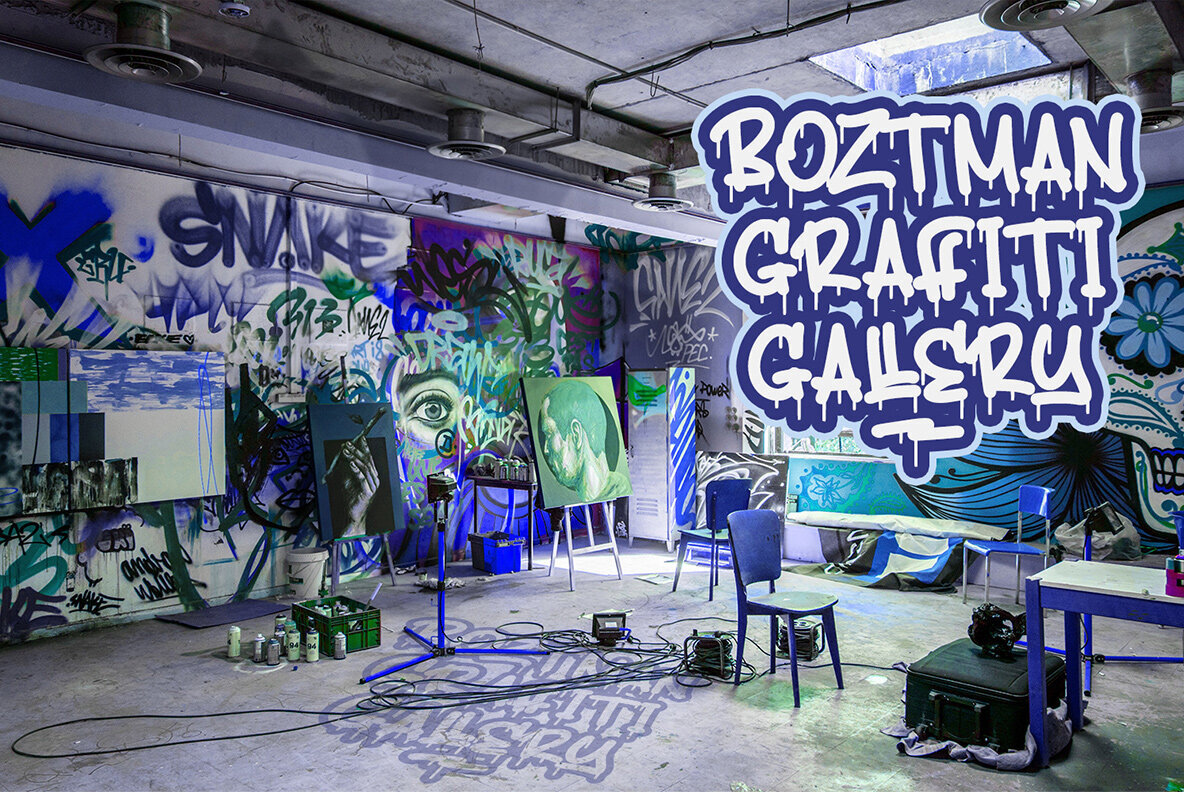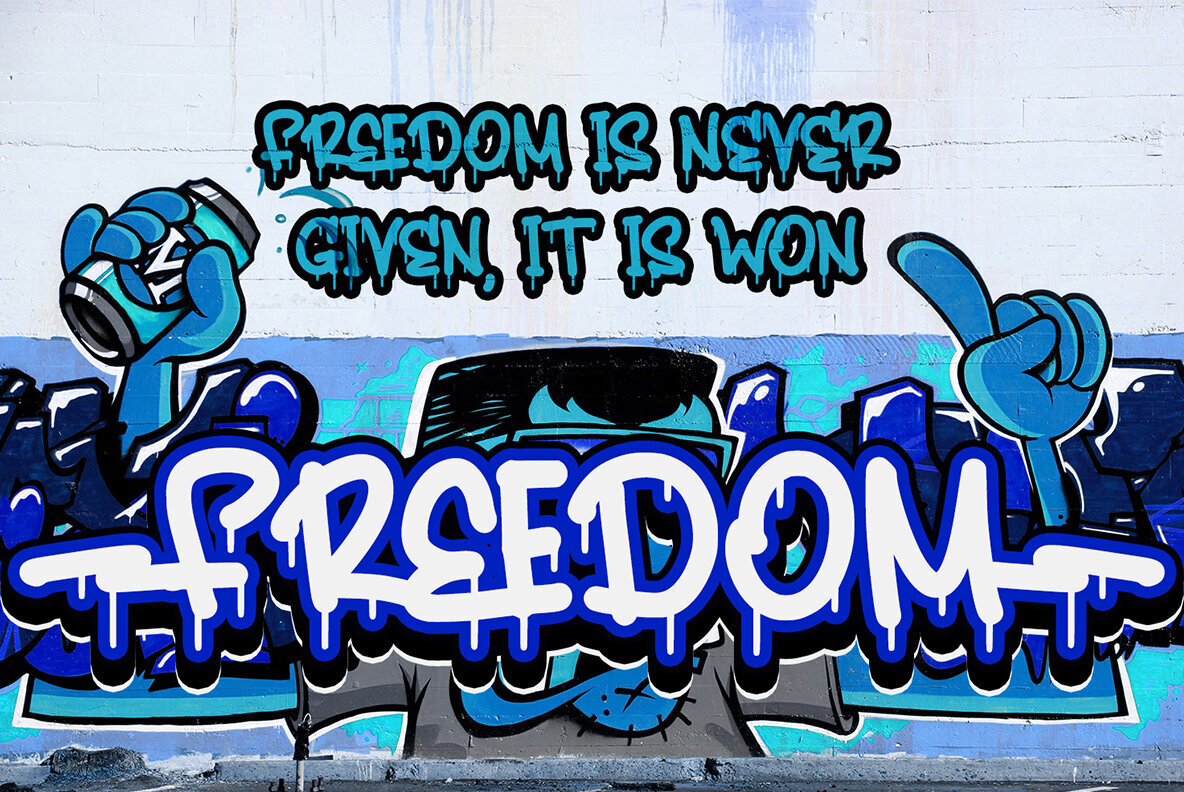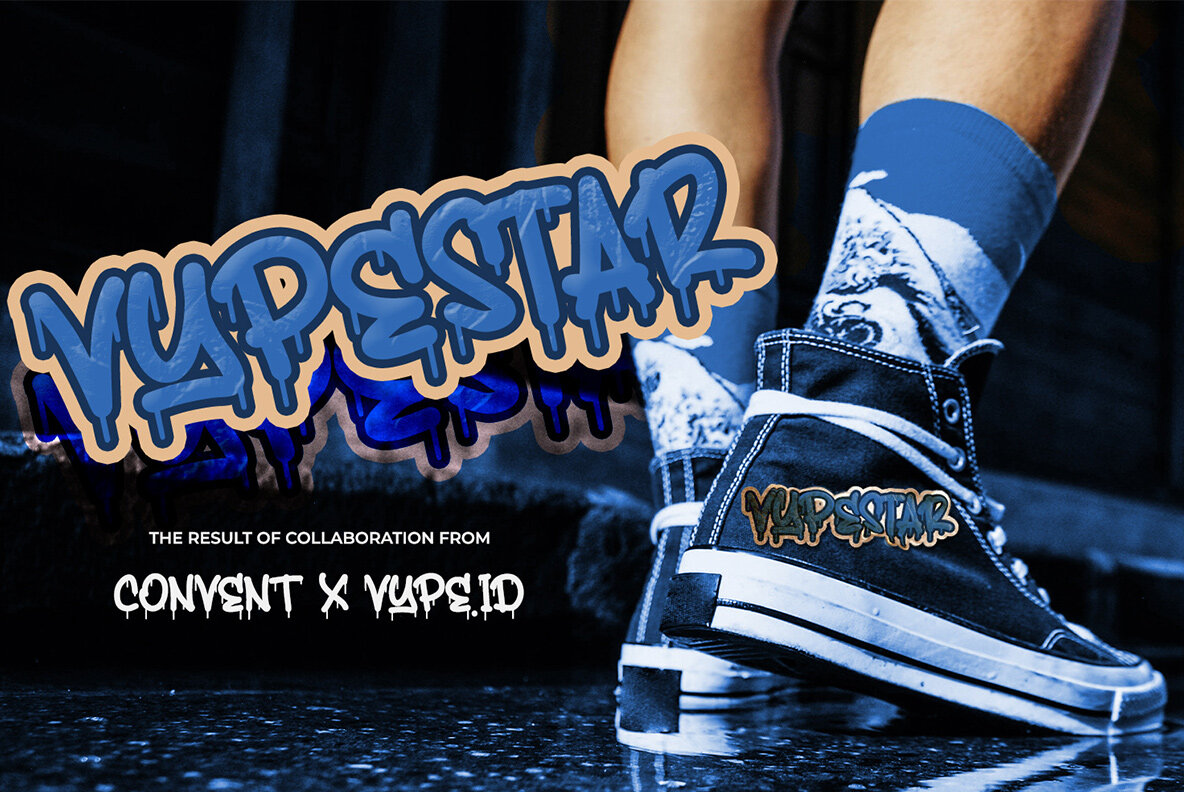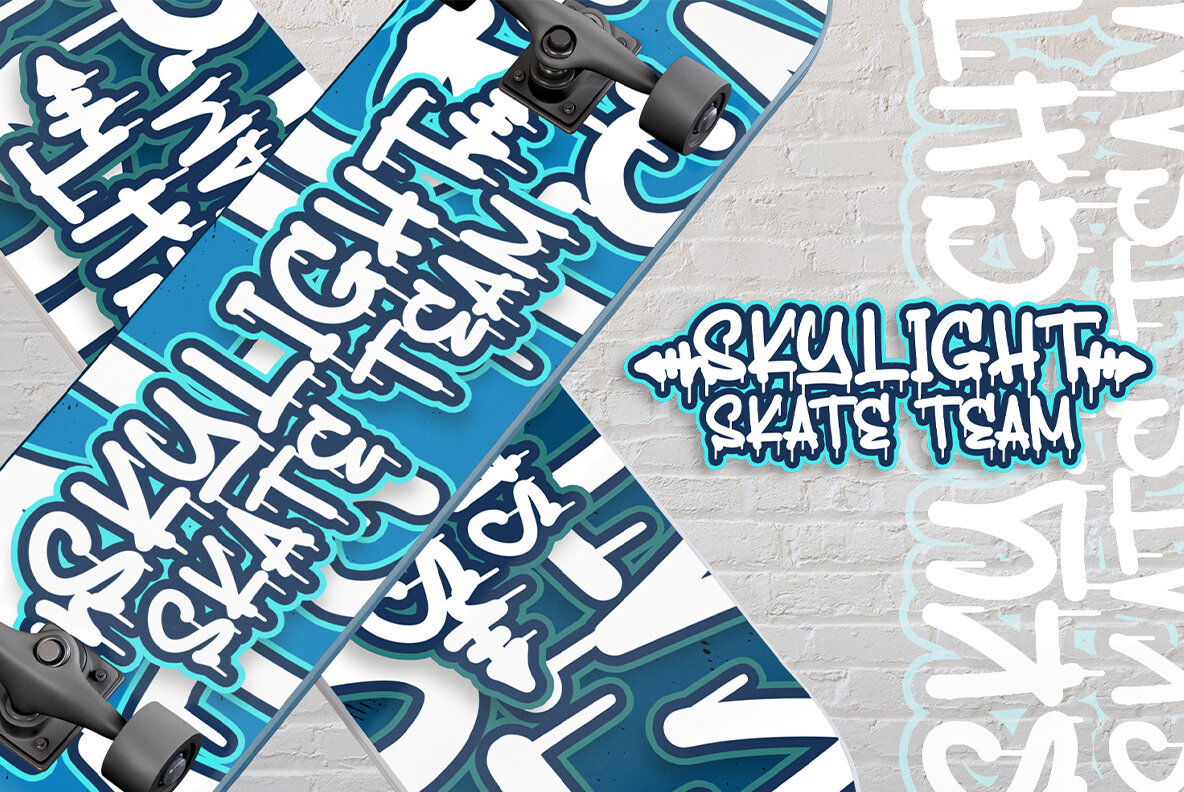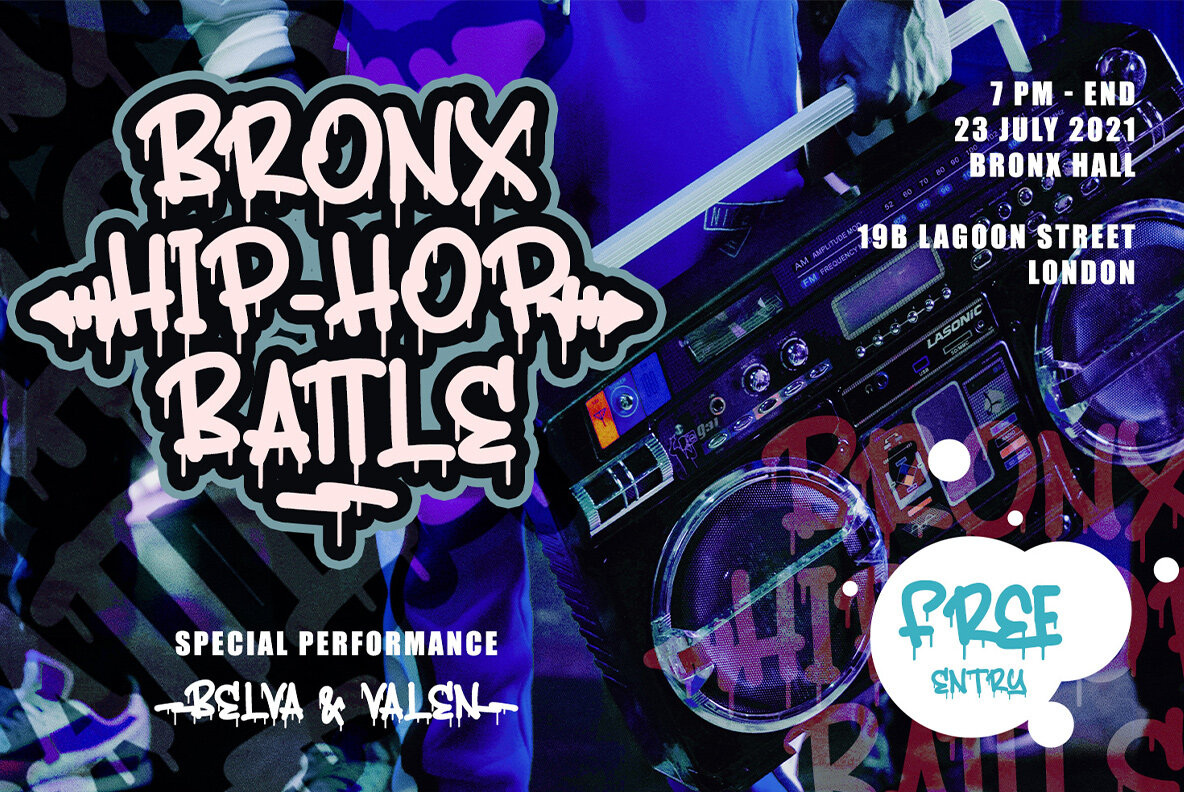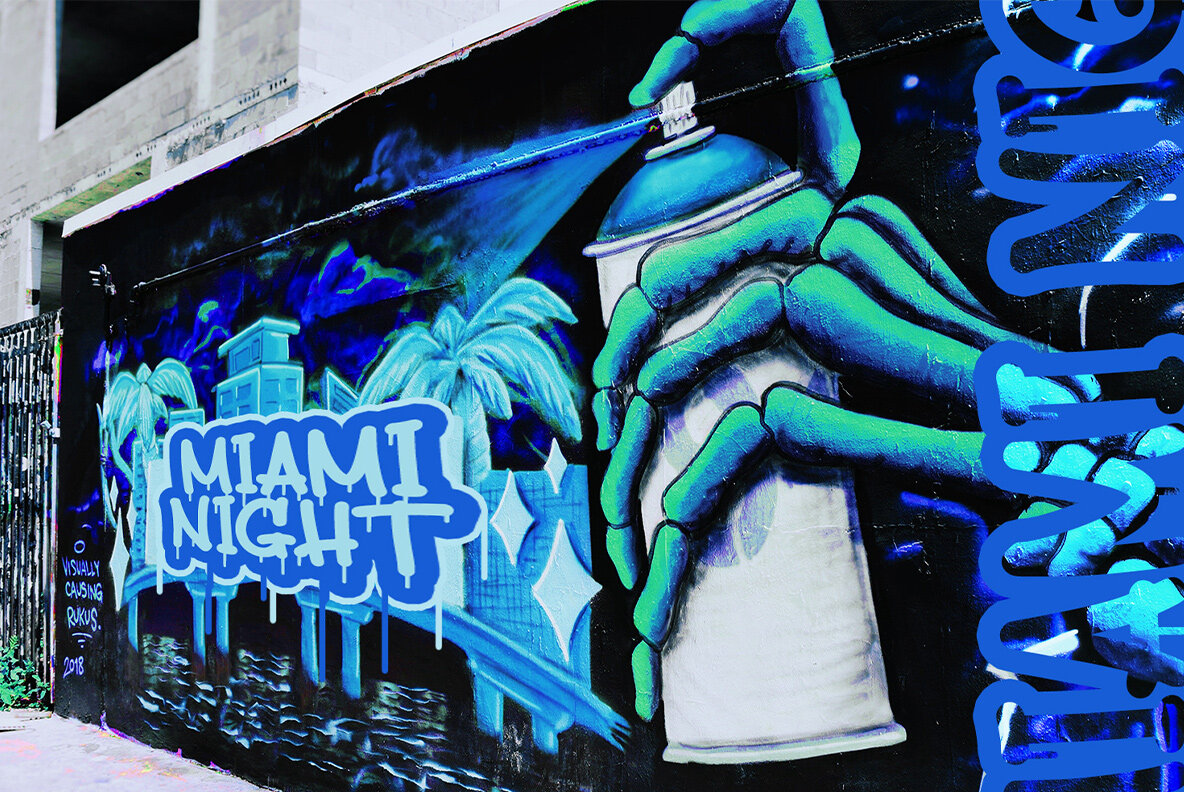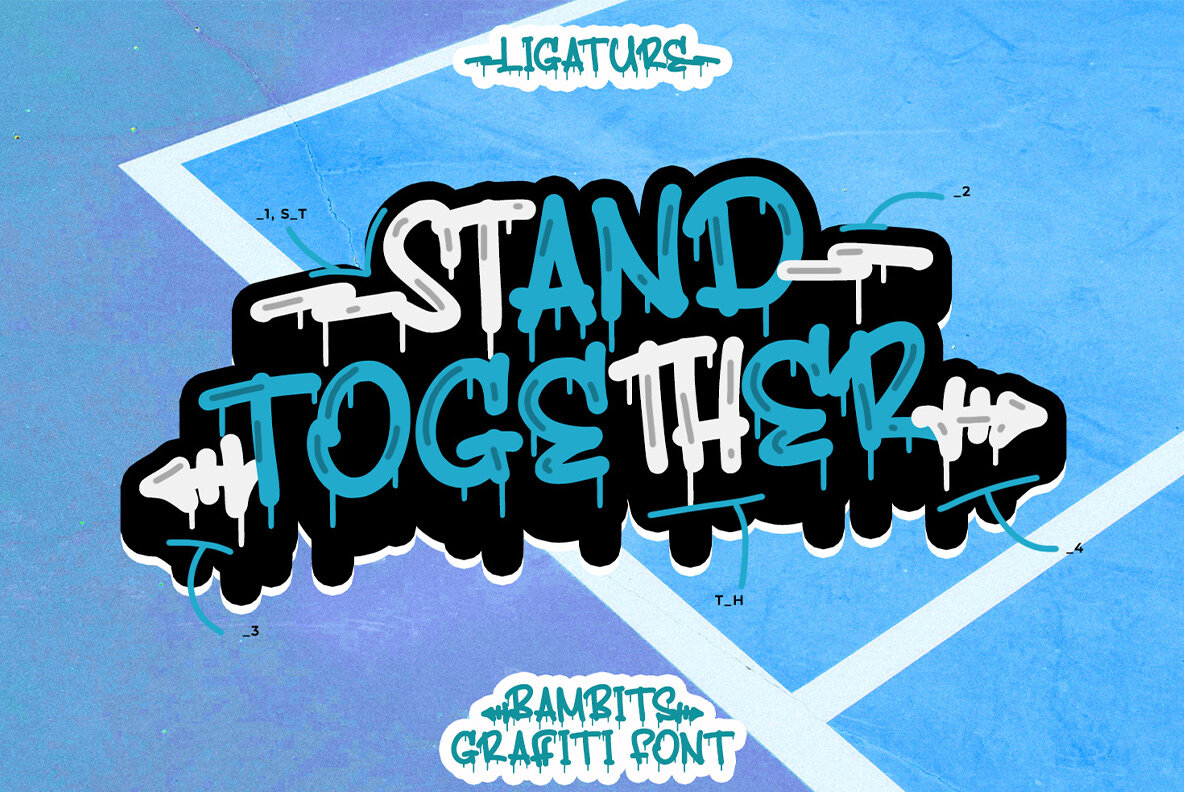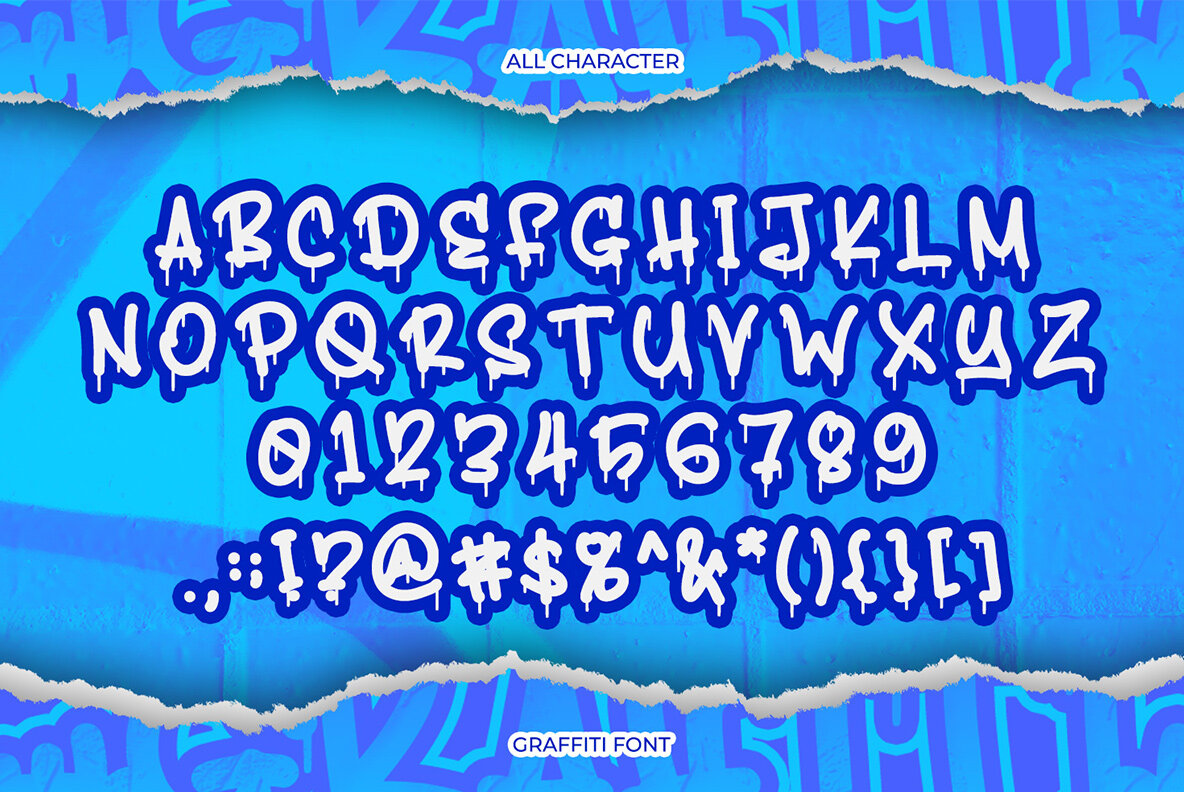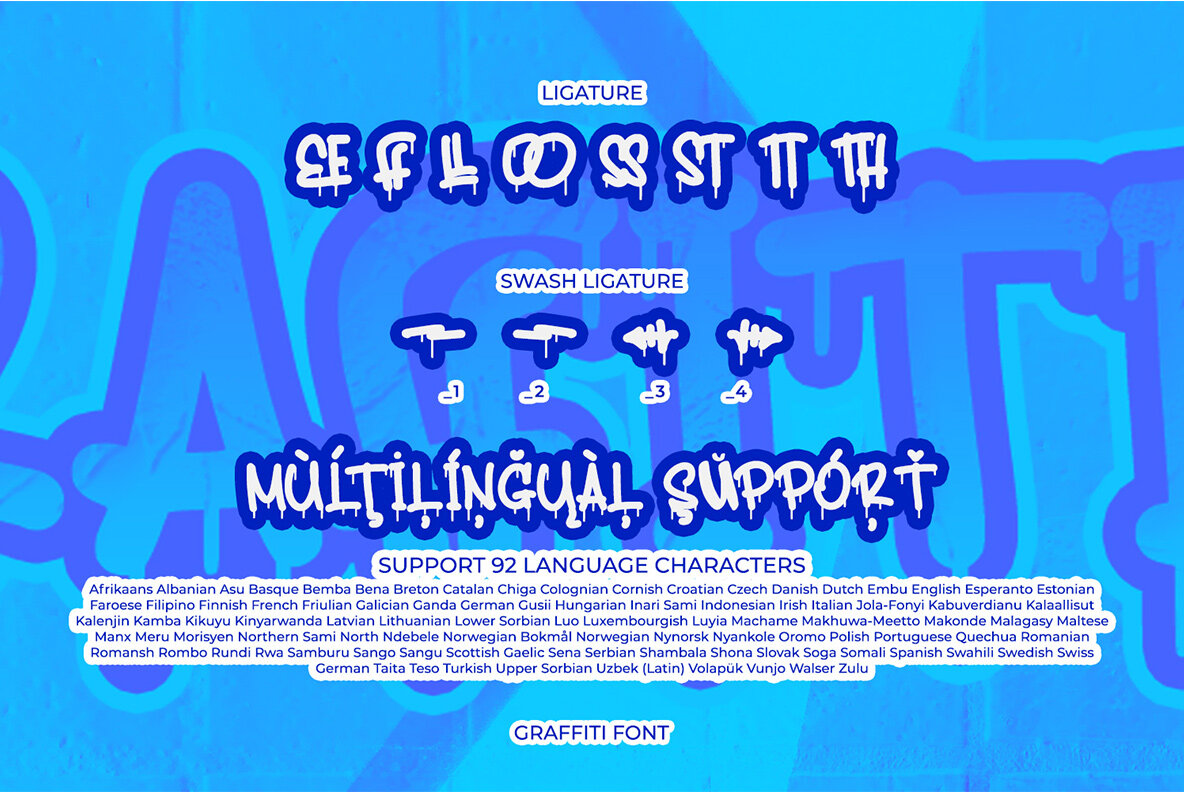
Bambits Font
Bambits
Discover the perfect graffiti-inspired font for your design needs with this bold and dynamic typeface. Combining the aesthetics of bubble fonts and graffiti art, this font delivers an easy-to-read yet visually compelling style. Its unique character adapts effortlessly to urban themes, making it an ideal choice for projects that demand a gritty, street-inspired vibe. Whether you're crafting standout packaging, eye-catching quotes, or statement t-shirts, this font provides the versatility and flair you've been seeking.
Packed with useful features, this typeface includes ligatures, stylistic sets, and multilingual support, offering a comprehensive toolkit for diverse design applications. With PUA encoding, accessing alternates and customizing your designs is straightforward. Additionally, the font includes numerals and punctuation, ensuring that your text is complete and coherent. Embrace creative freedom with this adaptable graffiti font that caters to the artistic, modern designer.